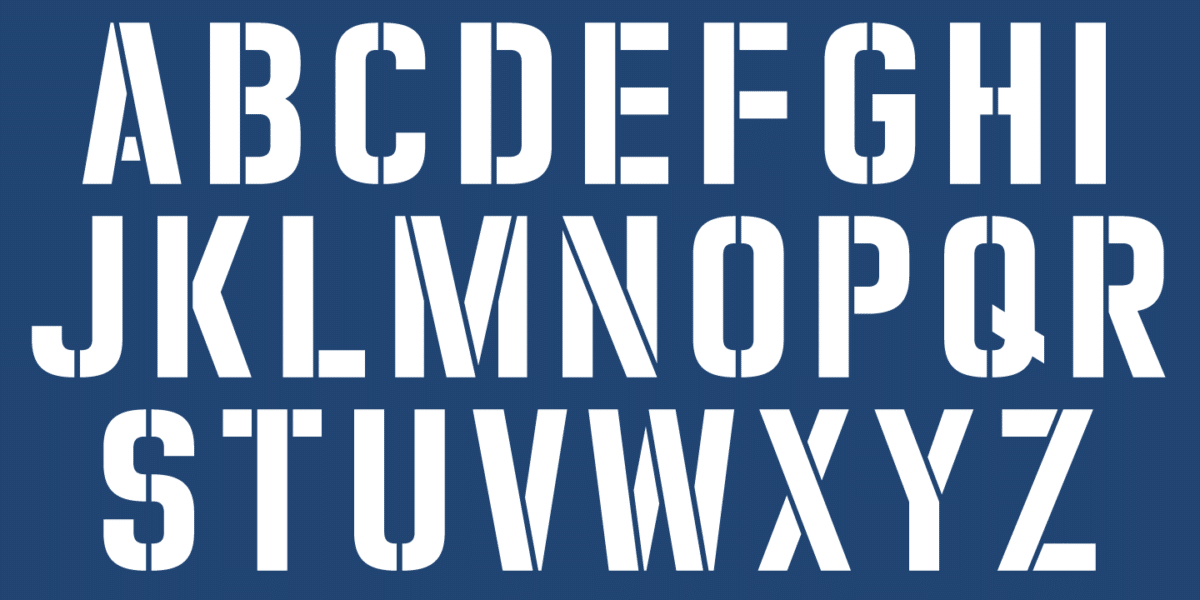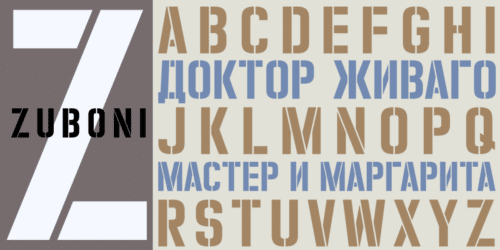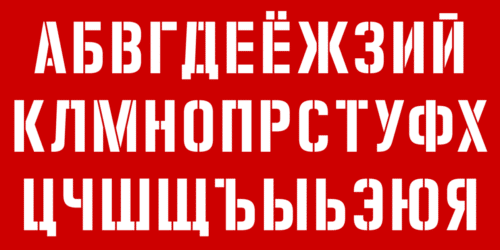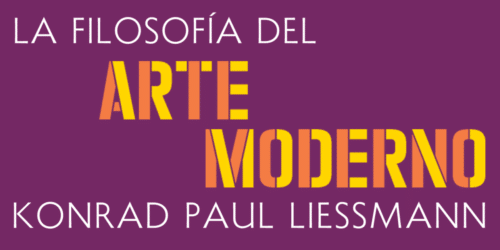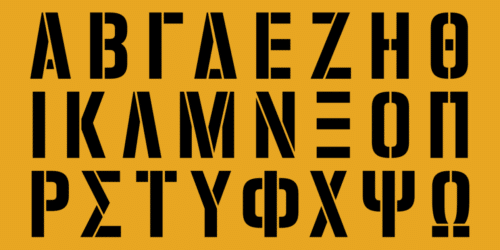
Zuboni Stencil is a bold, uppercase typeface based on a Russian design from around 1920 (original designer unknown).
Its extensive character set supports most European languages that use the Latin or Cyrillic alphabets as well as modern Greek.